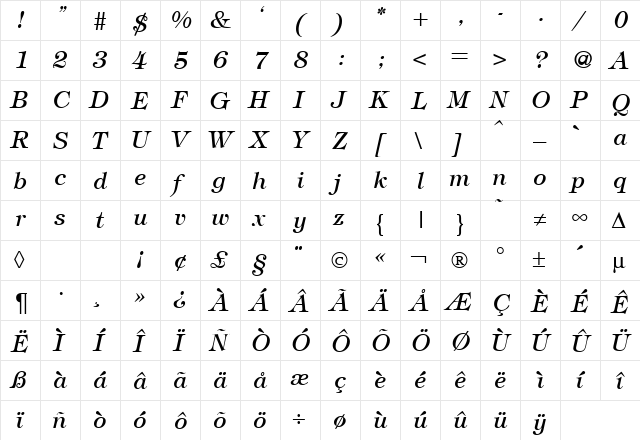
TiffanyTwo RegularItalic
Design Context for TiffanyTwo Typeface
TiffanyTwo is a composed and adaptable typeface that performs quietly and consistently across a wide range of design contexts. The slanted form adds forward momentum and visual energy.
Pro Tip: Try TiffanyTwo for annotation and caption copy alongside an upright companion — the contrast in angle creates a dynamic but ordered typographic system.